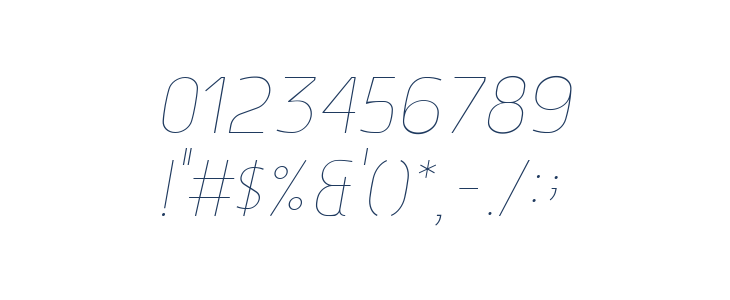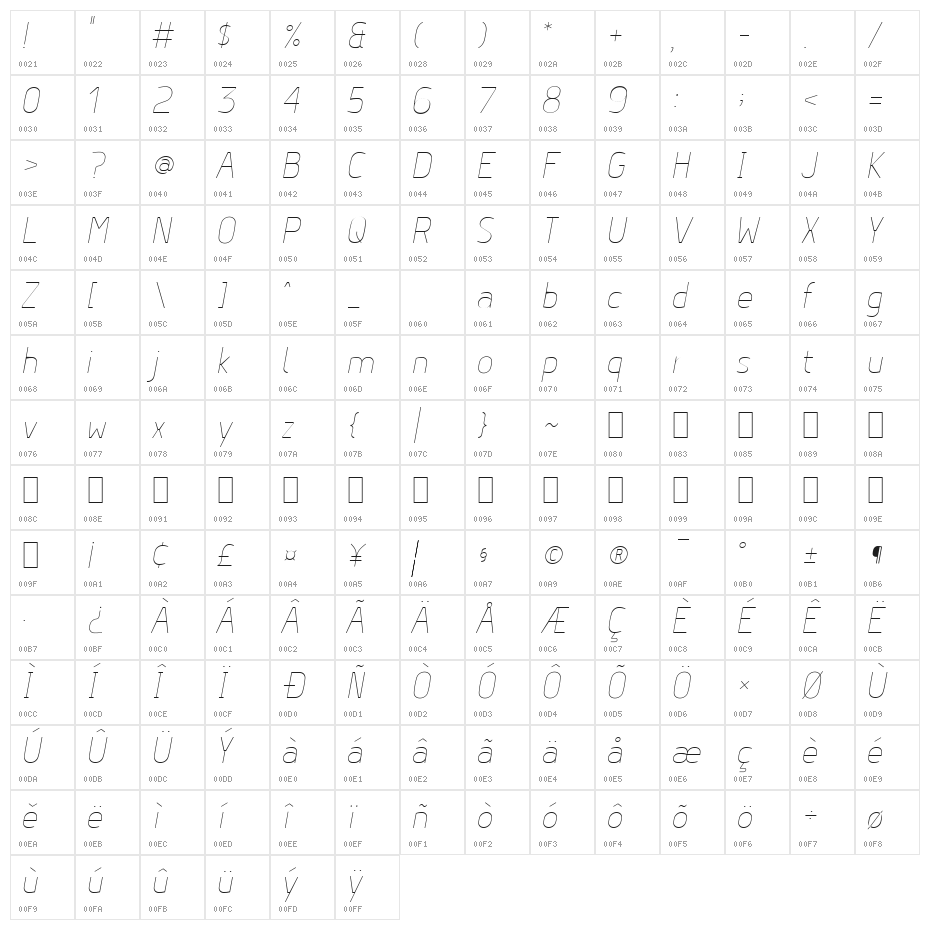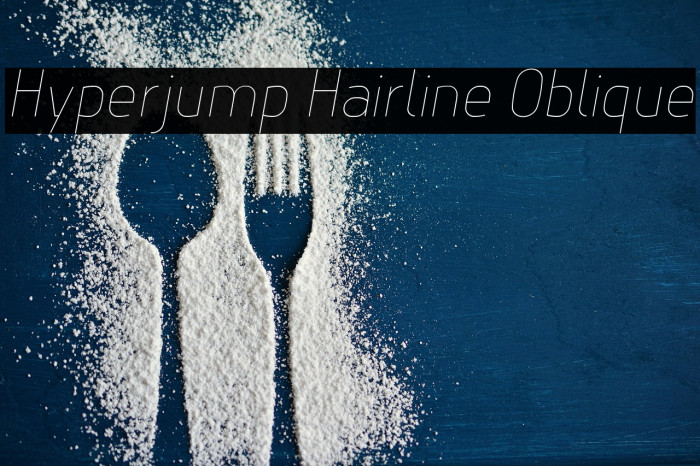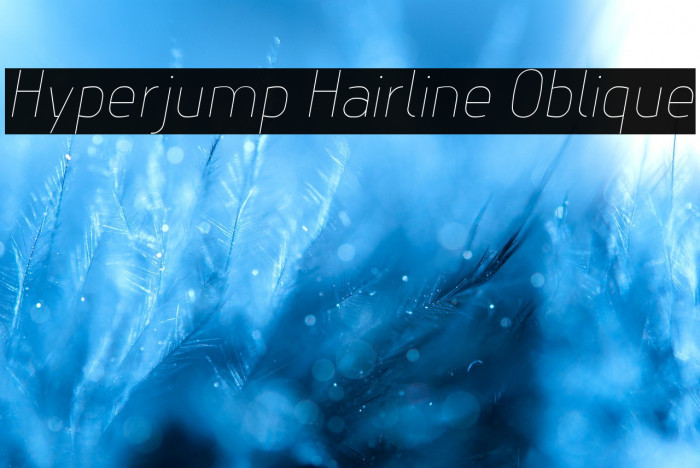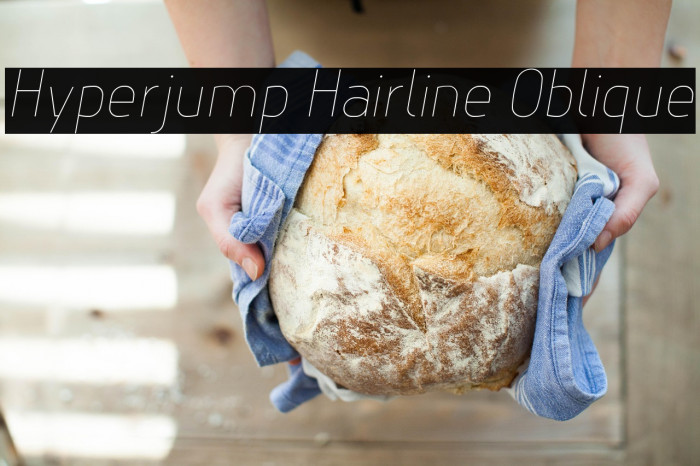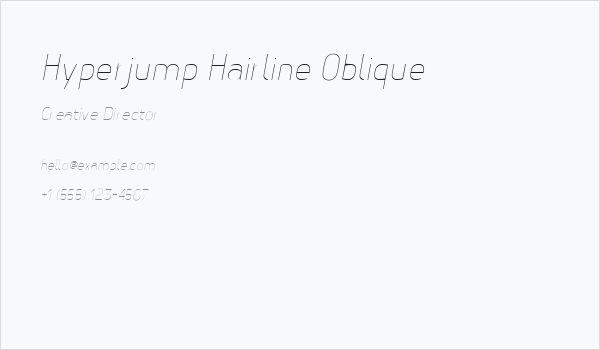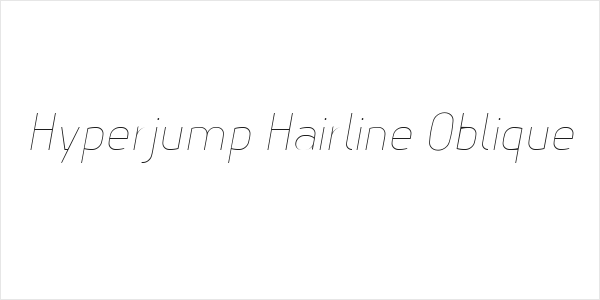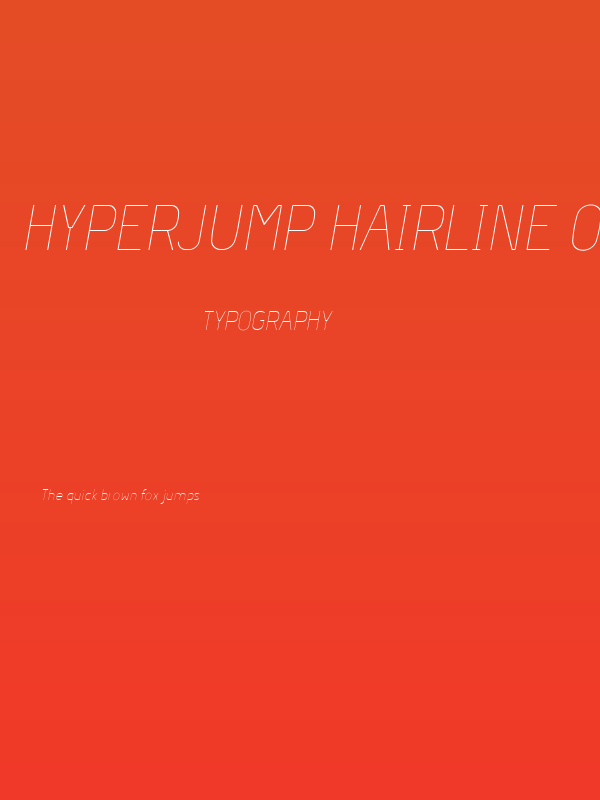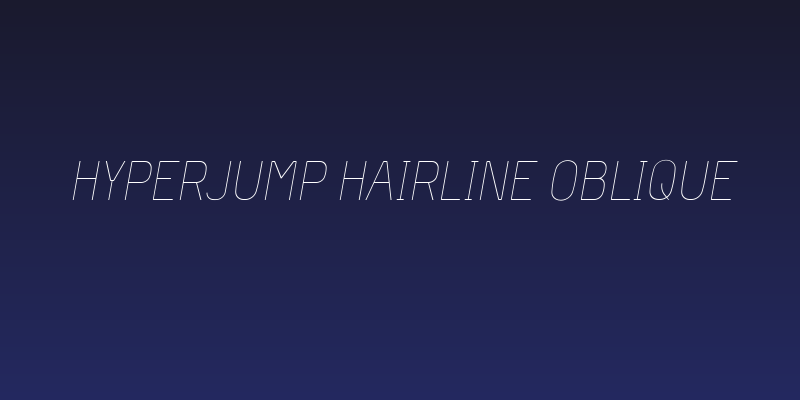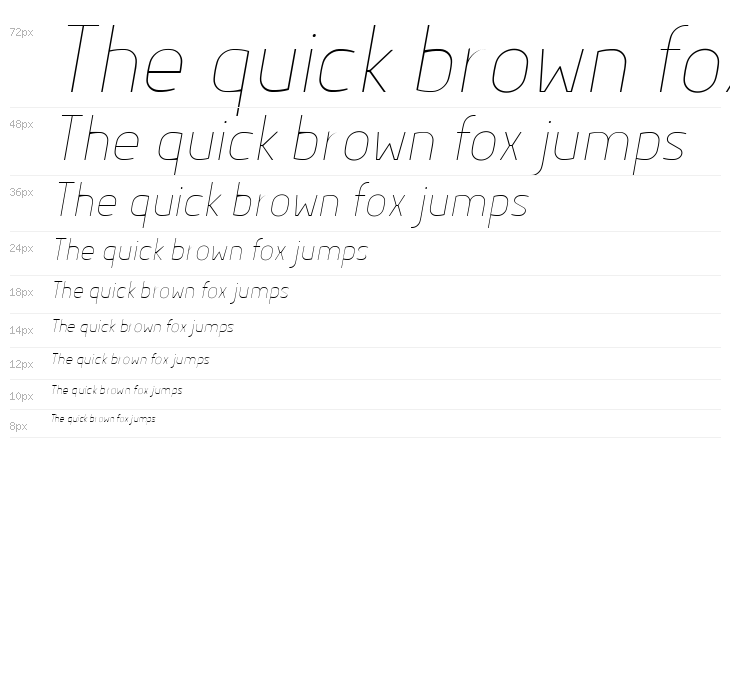
Hyperjump Hairline Oblique Font
Hyperjump Hairline Oblique Description
This font features a sleek, modern design with a hairline weight that gives it an elegant and minimalistic appearance. The oblique style adds a dynamic and forward-leaning character to the letters, enhancing its contemporary feel. Each character is crafted with precision, maintaining a consistent thin stroke throughout. The uppercase and lowercase letters are well-proportioned, and the numerals are clear and easily distinguishable. Special characters are included, maintaining the same thin, elegant style. This font is ideal for projects that require a clean and sophisticated look.